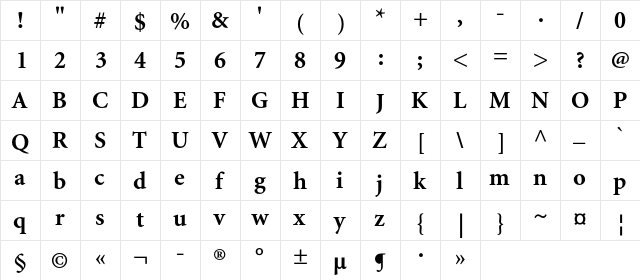
MiniatureC Bold Font Preview
MiniatureC Bold
Design Context for MiniatureC Typeface
MiniatureC is a composed and adaptable typeface that performs quietly and consistently across a wide range of design contexts. Its bold stroke weight gives it real presence on the page.